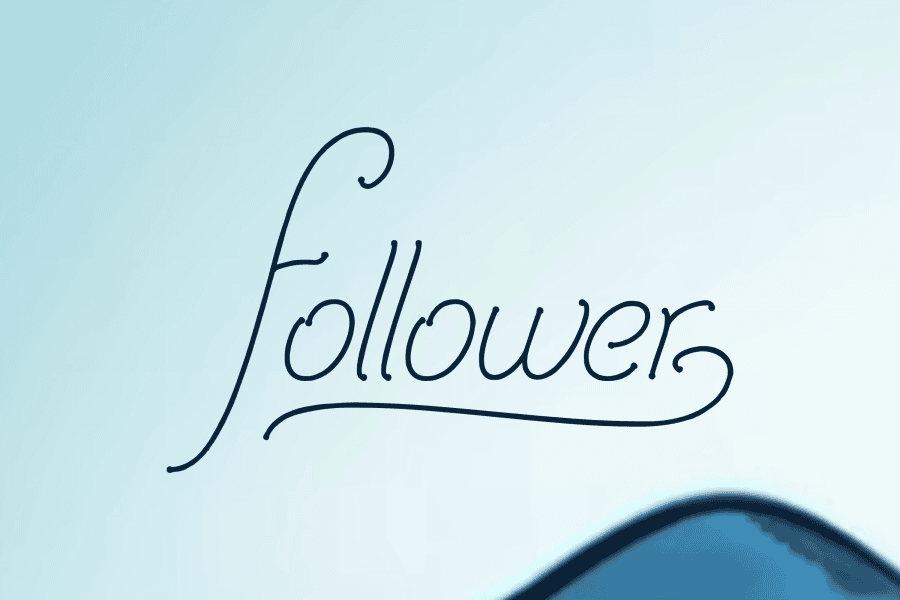
Follower Font 1001 Fonts
Follower Font 1001 Fonts Follower font download is available free from fontget. follower is a script type font that can be used on any device such as pc, mac, linux, ios and android. this font has 1 variant available. Download follower regular font | 1 style free font. file size 0.07mb | vaiminit,follower,script,styles. Discover & download follower font. elegant, flowing script with thin strokes and connected characters. with ️ whatfontis. Follower is a font. the typeface contains 1 file and supports 41 languages. the font can be used in non commercial use. follower was developed vaiminit. And follow my instragram for update : @vaiminit follower font family designed by vaiminit has a total of 1 different styles. you can download the follower font to your computer or use it on your website. please research the license information before using it. Examples of this font can be found on the font site download free fonts, designed by vaiminit, include the number of glyphs 252 characters. let your words take flight with this font — where modern elegance meets artistic expression.